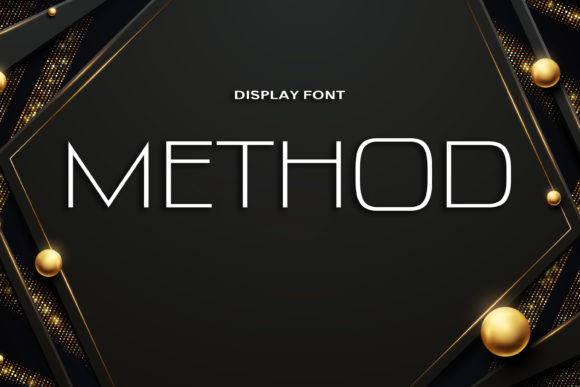
Unleash the Power of Method, the Modern Masterpiece.
In a world where creativity reigns supreme, introducing Method, the display font that will redefine your digital artistry. Created by the visionary minds at DmDesignsStoreArt, Method is a typographic marvel that embodies the essence of modern design.
With its sleek lines, minimalist aesthetics, and airy structure, Method is the perfect companion for your creative endeavors. Whether you're a seasoned designer or a budding enthusiast, Method will elevate your work to new heights, transforming your ideas into visually stunning masterpieces.
Immerse yourself in the world of Method and discover endless possibilities. Its versatile nature allows it to seamlessly adapt to any project, from captivating logos and branding identities to eye-catching headlines and website designs. Let Method be your guide as you navigate the realm of modern aesthetics, leaving a lasting impression that resonates with your audience.